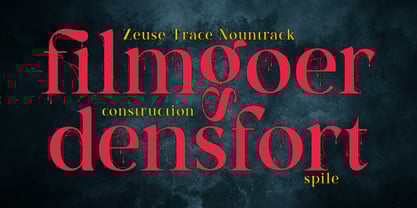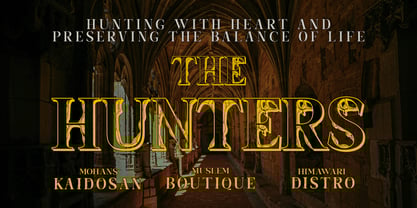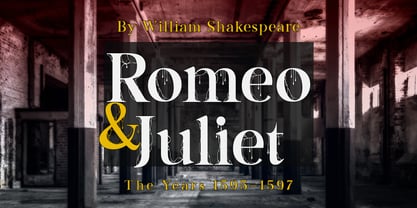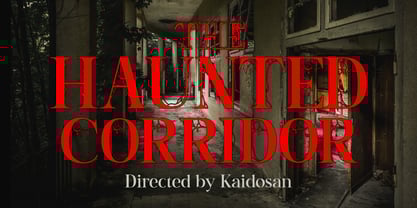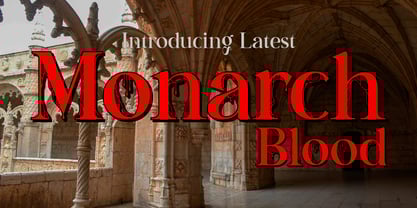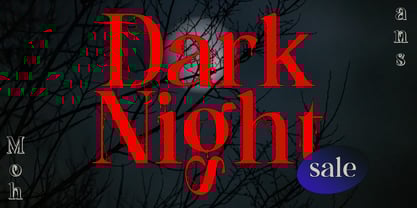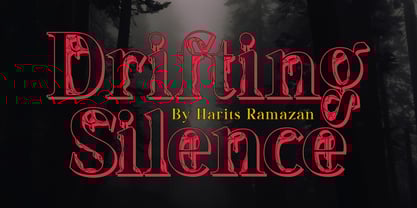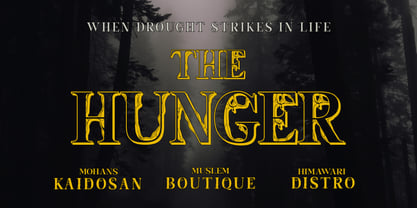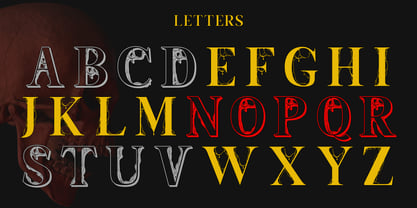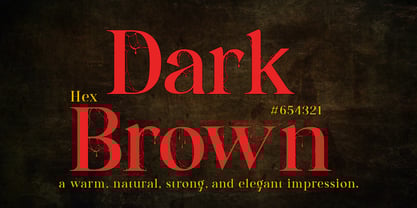
Monarch Blood
by Kaidosan
The Monarch Blood Font Family was designed by Muhammad Ansari and published by Kaidosan. Monarch Blood contains 3 styles and family package options.
Monarch Blood | Horror Typeface Monarch Blood is a horror-inspired typeface designed to bring a bold, dramatic, and striking character to your creative projects. Presented as a versatile font family with three styles — Regular, Decorative, and Shadow — it offers greater flexibility and creativity in design applications. Perfect for a wide range of uses, Monarch Blood is ideal for logos, branding, household product design, packaging, mugs, quotes, posters, tote bags, t-shirts, book covers, business cards, invitations, greeting cards, labels, photography watermarks, and more. It also works beautifully for special events and any creative project that calls for a unique and impactful horror typeface.
Designers: Muhammad Ansari
Publisher: Kaidosan
Foundry: Kaidosan
Design Owner: Kaidosan